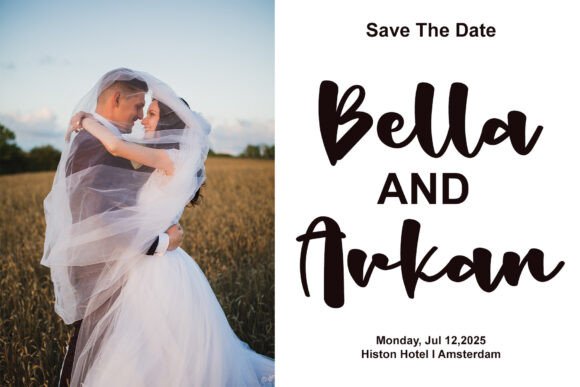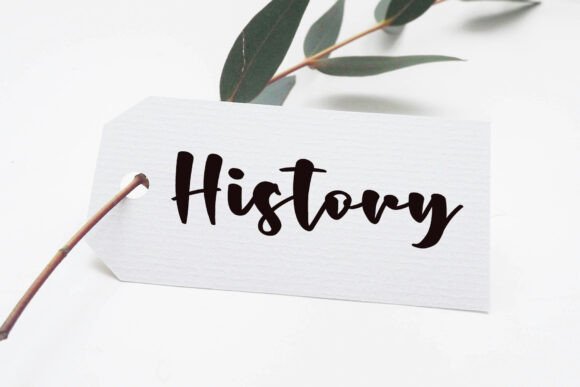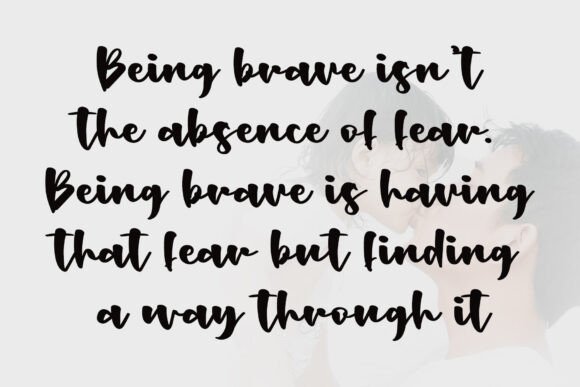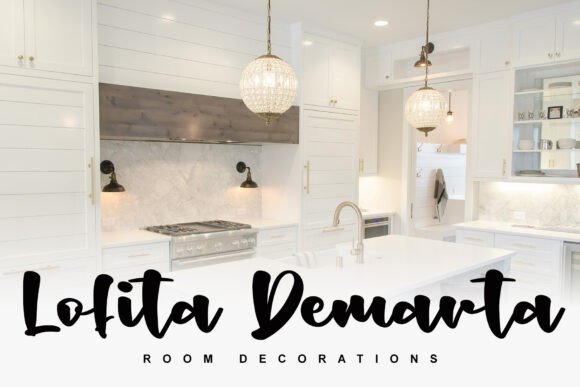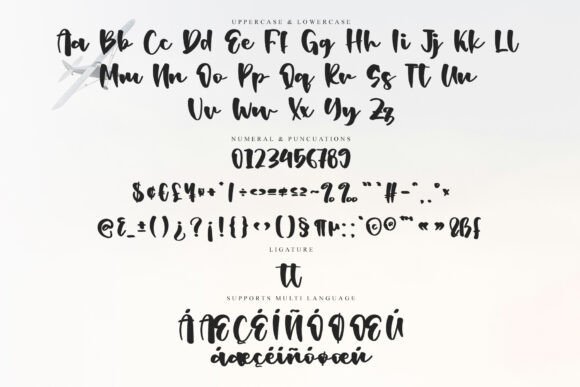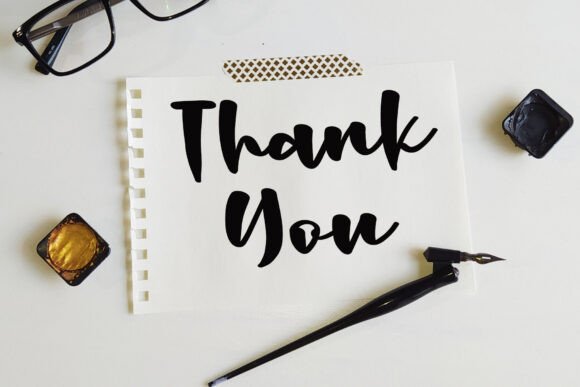
Unleashing the Magic of Handwritten Beauty: Angela Script Font
As designers, we’ve all had those moments when we’re brainstorming ideas for a new project, and a spark of inspiration hits us – perhaps it’s a beautiful combination of colors, a clever typography choice, or a whimsical illustration. For me, it’s always the thrill of discovering a new font that sets my creative juices flowing. And that’s exactly what happened when I stumbled upon the enchanting Angela Script Font.
With its unique blend of artistic flair and bold display style, Angela Script Font is the perfect tool for designers who want to add a touch of elegance and playfulness to their work. Whether you’re working on a wedding invitation, a children’s book, or a social media campaign, this font is sure to bring your designs to life. Its smooth curves and charming personality make it a valuable asset for any creative project, and its versatility is simply unmatched.
Key Features of Angela Script Font
- Font Style: Handwritten, Script
- Unique Characteristics: Distinctive, elegant, and sophisticated handwritten style with subtle flair and movement
Designer Review: Angela Script Font
First off, I love the elegant and refined feel of Angela Script Font. It’s perfect for adding a touch of sophistication to any design project ✨. The flowing script style is both beautiful and versatile, making it suitable for a wide range of applications, from wedding invitations to brand logos.
- Legibility: Angela Script is easy to read, even in smaller font sizes.
- Customizability: The font comes in a range of weights and styles, allowing designers to tailor it to their specific needs.
- Font size: While Angela Script is legible, it can become difficult to read at very small font sizes ⚠️.
- Line spacing: The font may require adjustments to line spacing to ensure optimal readability.
Overall, I think Angela Script Font is a beautiful and versatile choice for designers. While it may require some adjustments to get the best results, the end product is well worth the effort.
Angela Script Font is perfect for adding a touch of elegance and sophistication to your designs. Here are some tips to get the most out of it:
- Use it for titles, headings, and quotes to add emphasis and visual interest.
- Pair it with a clean and simple sans-serif font for body text.